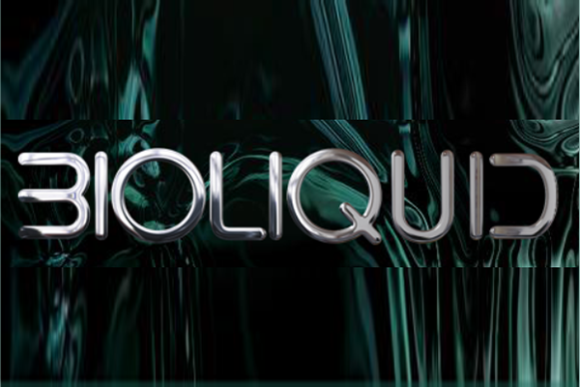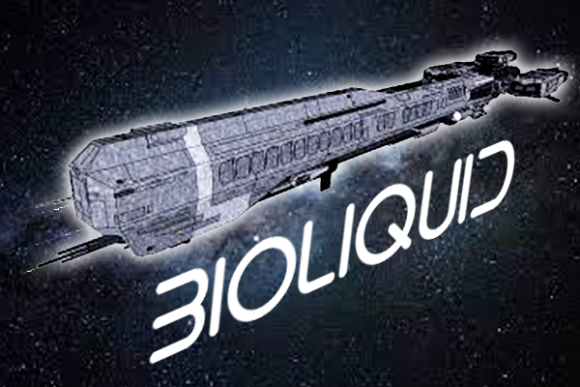
Introducing Bioliquid Font: The Cool and Modern Display Font for Stunning Designs
Are you a designer or crafter looking for a font that can elevate your designs to the next level? Look no further than Bioliquid Font, a cool and modern display font that is perfect for creating stunning posters, flyers, and prints. In this article, we’ll explore the features and benefits of Bioliquid Font, and show you how to use it to unlock endless possibilities for your designs.
What is Bioliquid Font?
Bioliquid Font is a unique and stylish display font that is designed to make a statement. Its modern and sleek design makes it perfect for use in a variety of applications, from posters and flyers to logos and branding materials. The font features a distinctive liquid-like style, with smooth curves and rounded edges that give it a friendly and approachable feel.
Key Features of Bioliquid Font
- Cool and Modern Design: Bioliquid Font has a fresh and contemporary design that is sure to grab attention.
- Highly Versatile: The font can be used in a variety of applications, from posters and flyers to logos and branding materials.
- Easily Readable: Despite its unique design, Bioliquid Font is highly legible, making it perfect for use in titles, headings, and other display text.
- Endless Possibilities: With Bioliquid Font, you can create a wide range of designs, from bold and dramatic to subtle and sophisticated.
How to Use Bioliquid Font in Your Designs
Using Bioliquid Font in your designs is easy. Here are a few tips to get you started:
- Experiment with Different Sizes: Bioliquid Font looks great in a variety of sizes, from large display text to smaller body text.
- Play with Color: The font looks great in a range of colors, from bold and bright to subtle and muted.
- Combine with Other Fonts: Bioliquid Font pairs well with a variety of other fonts, making it easy to create unique and interesting combinations.
Benefits of Using Bioliquid Font
There are many benefits to using Bioliquid Font in your designs. Here are a few:
- Stand Out from the Crowd: Bioliquid Font is a unique and stylish font that is sure to grab attention.
- Elevate Your Brand: The font’s modern and sleek design makes it perfect for use in branding and logo design.
- Save Time: With Bioliquid Font, you can create professional-looking designs in minutes, without the need for extensive design experience.